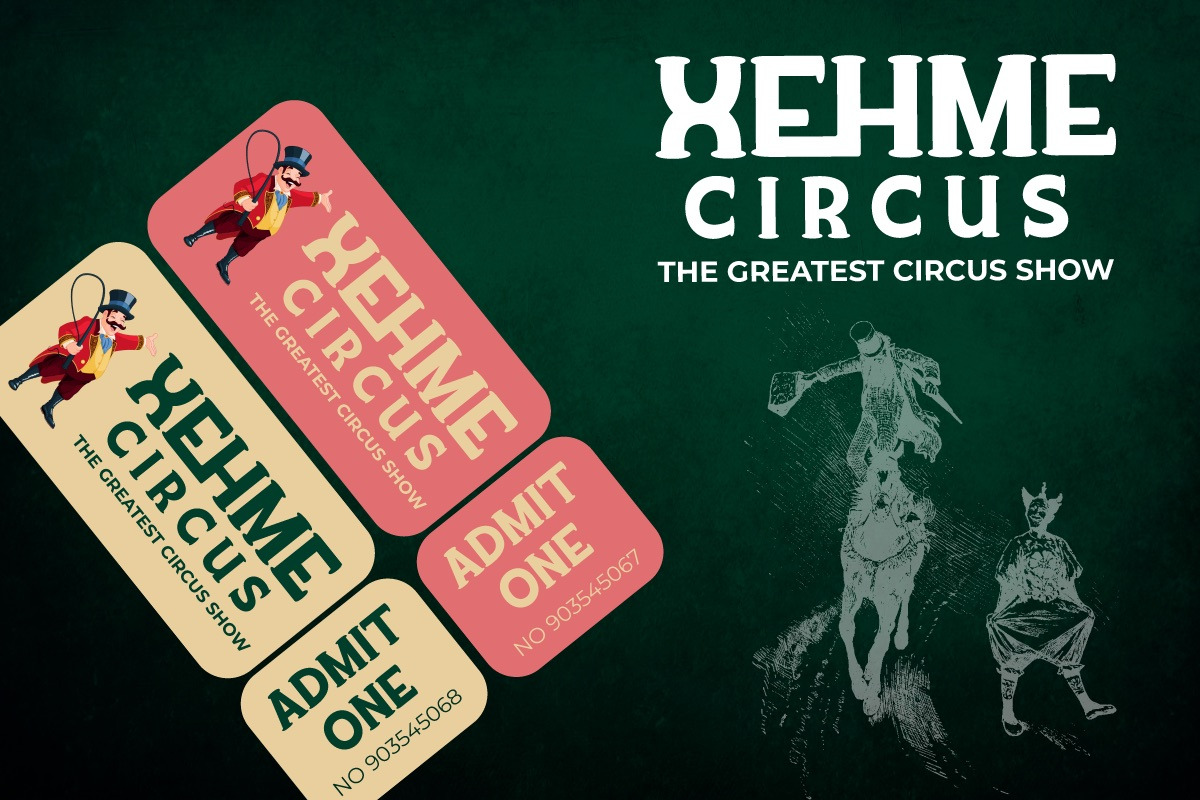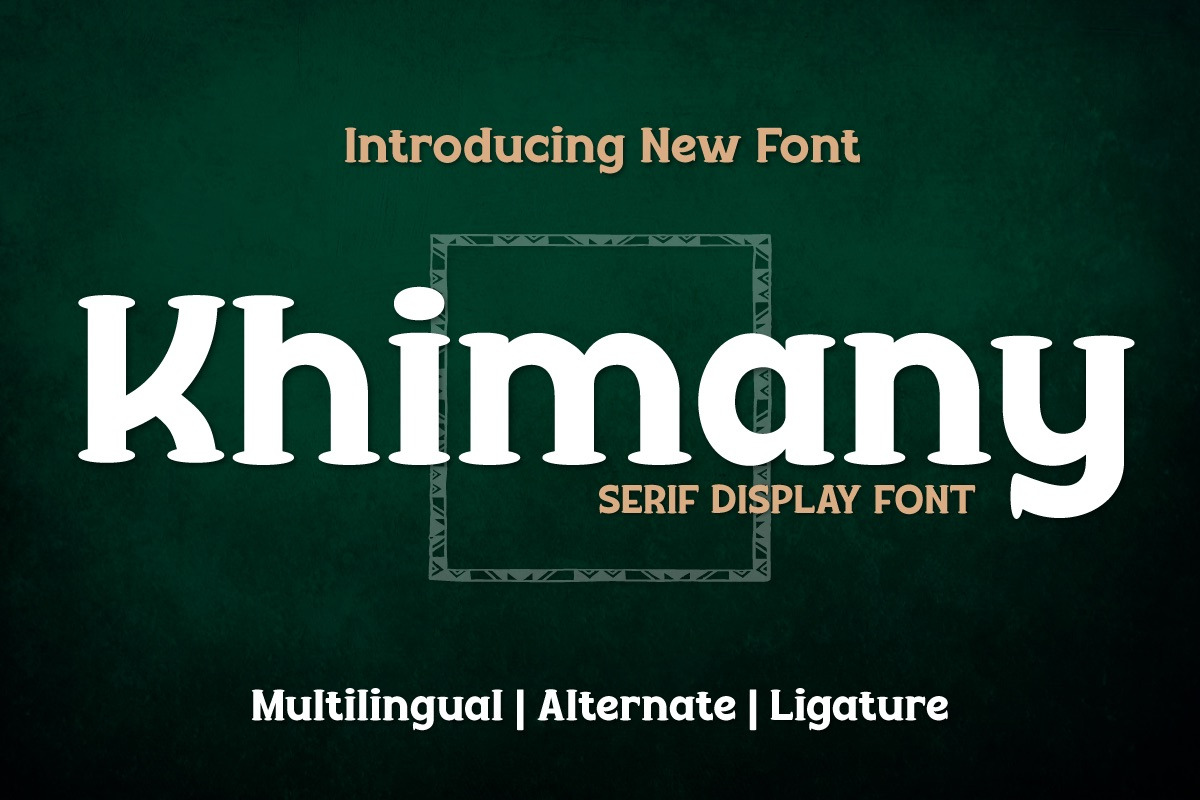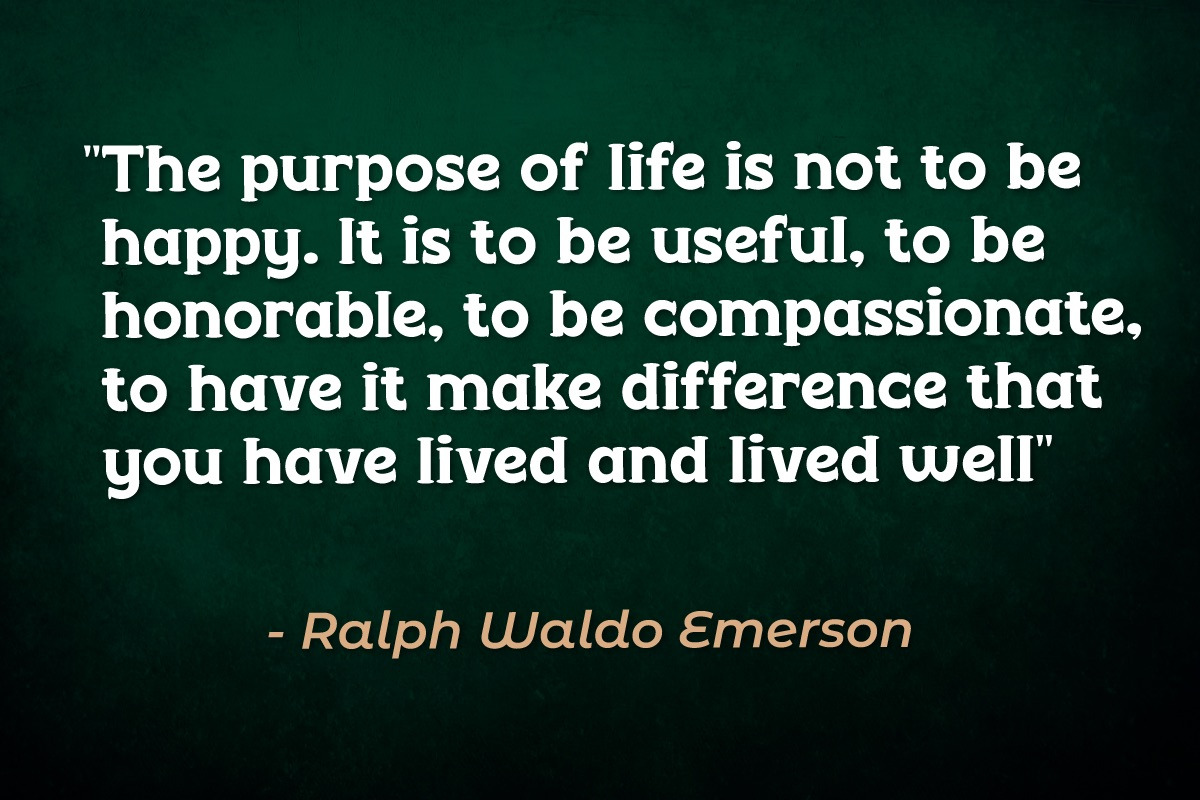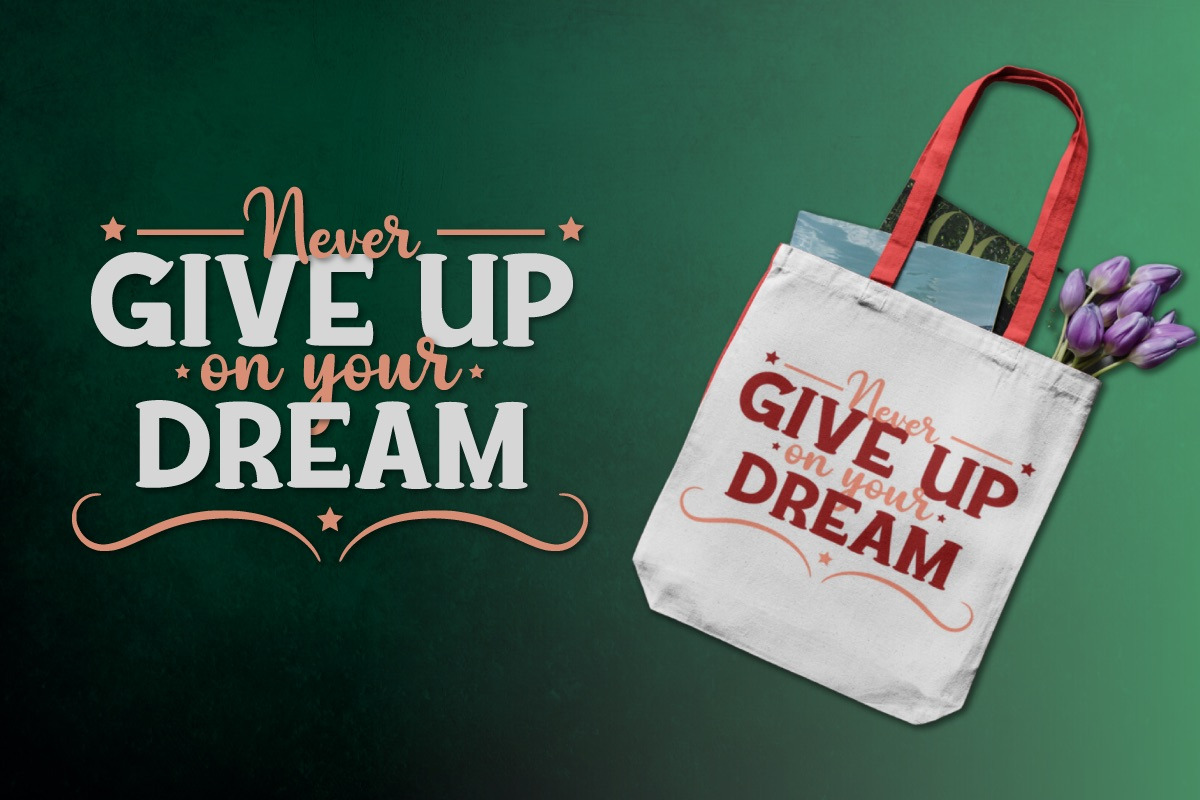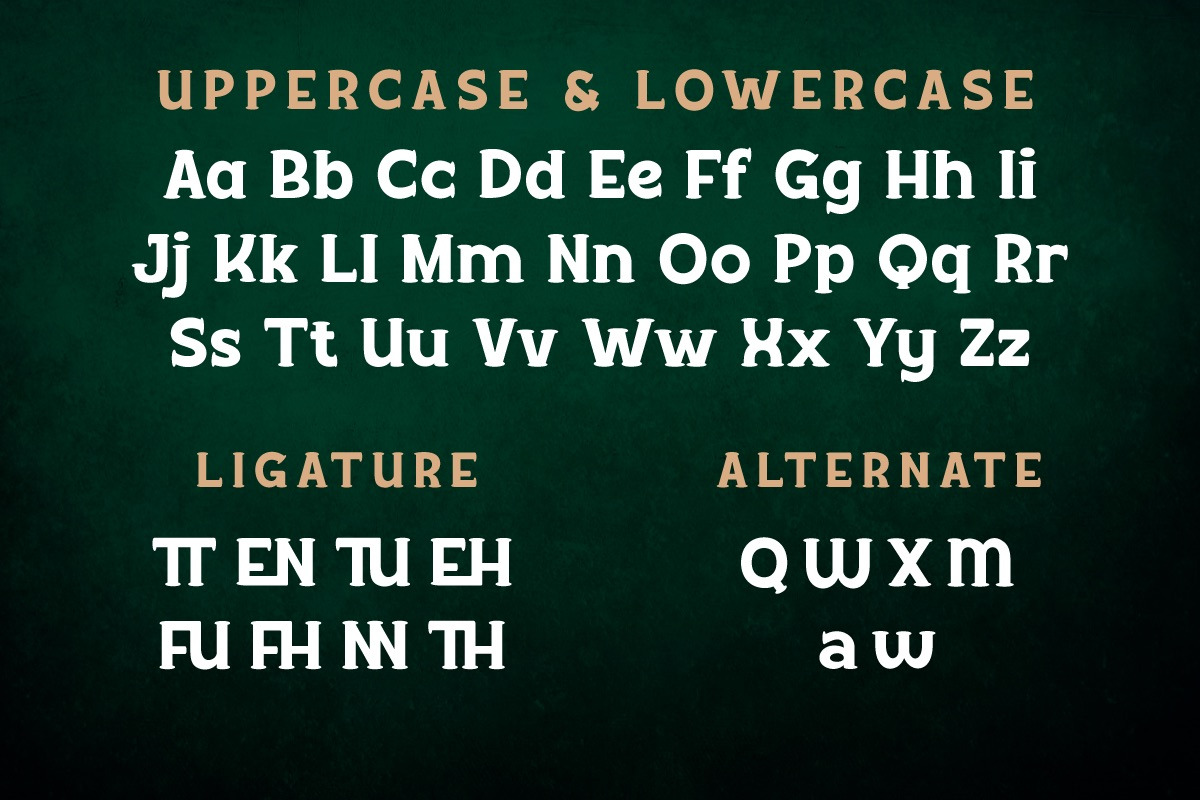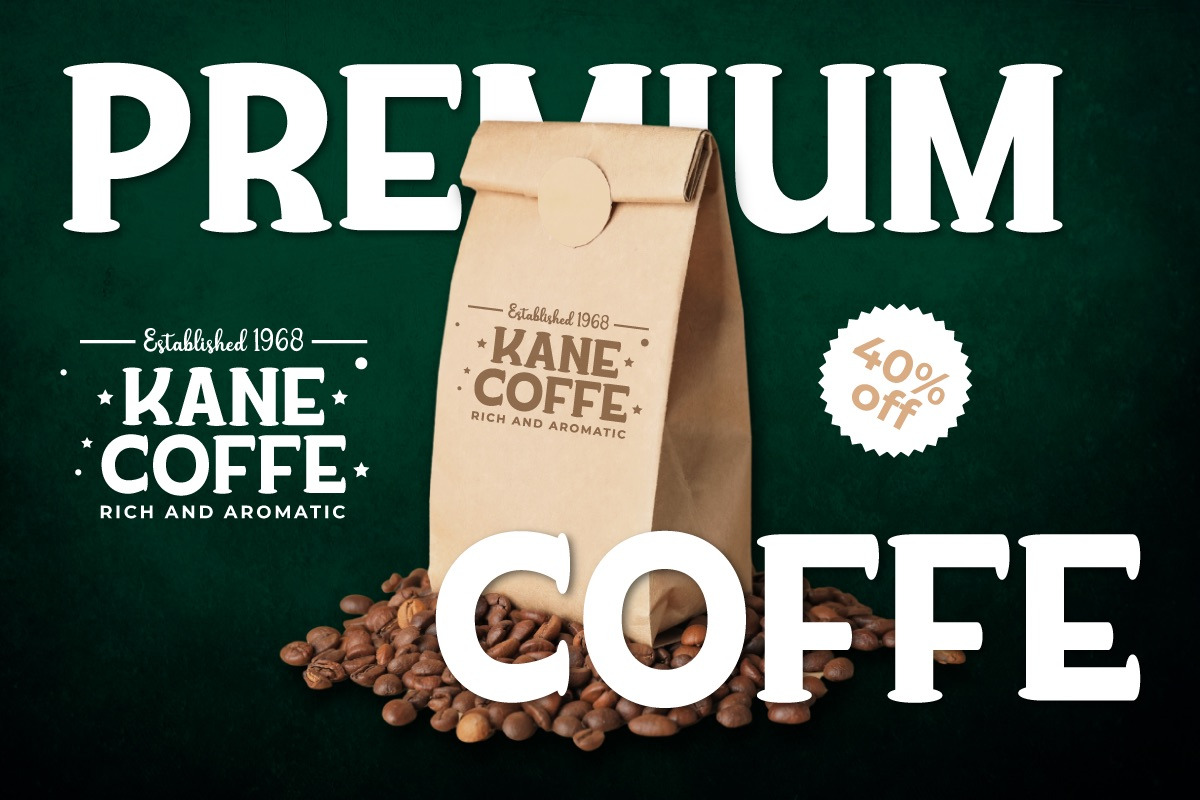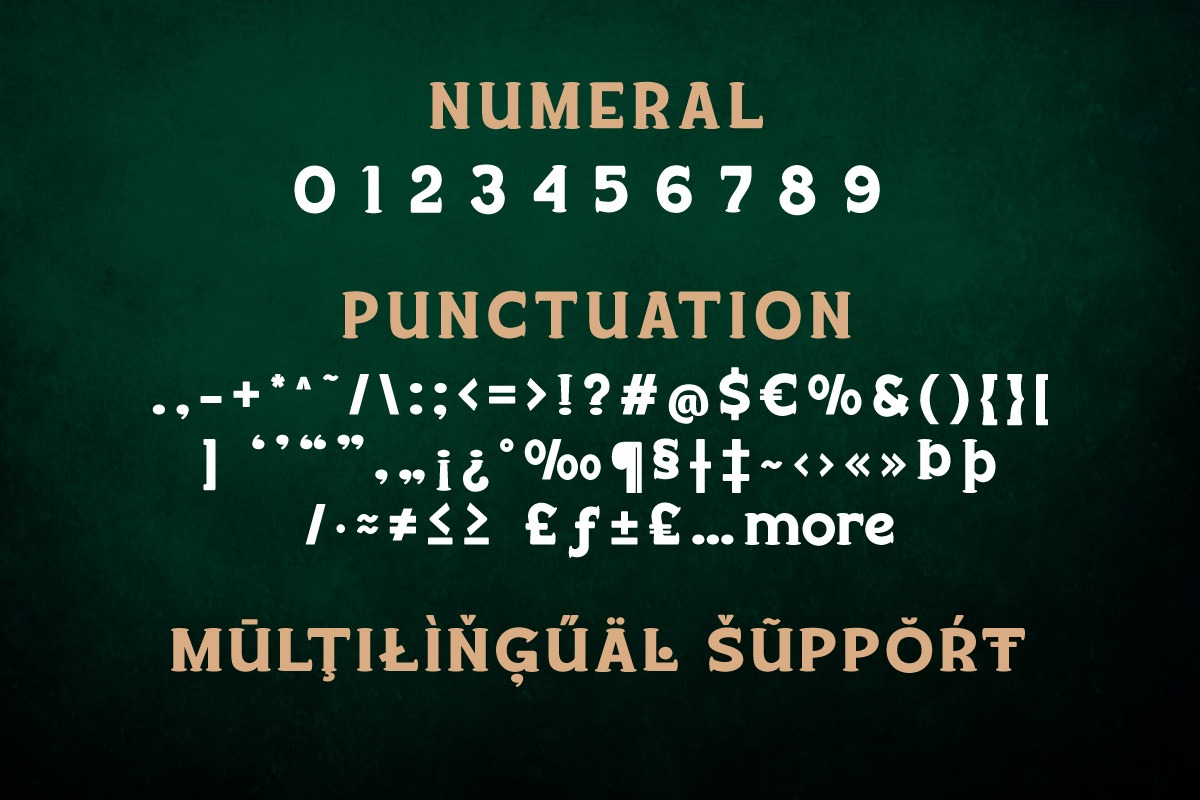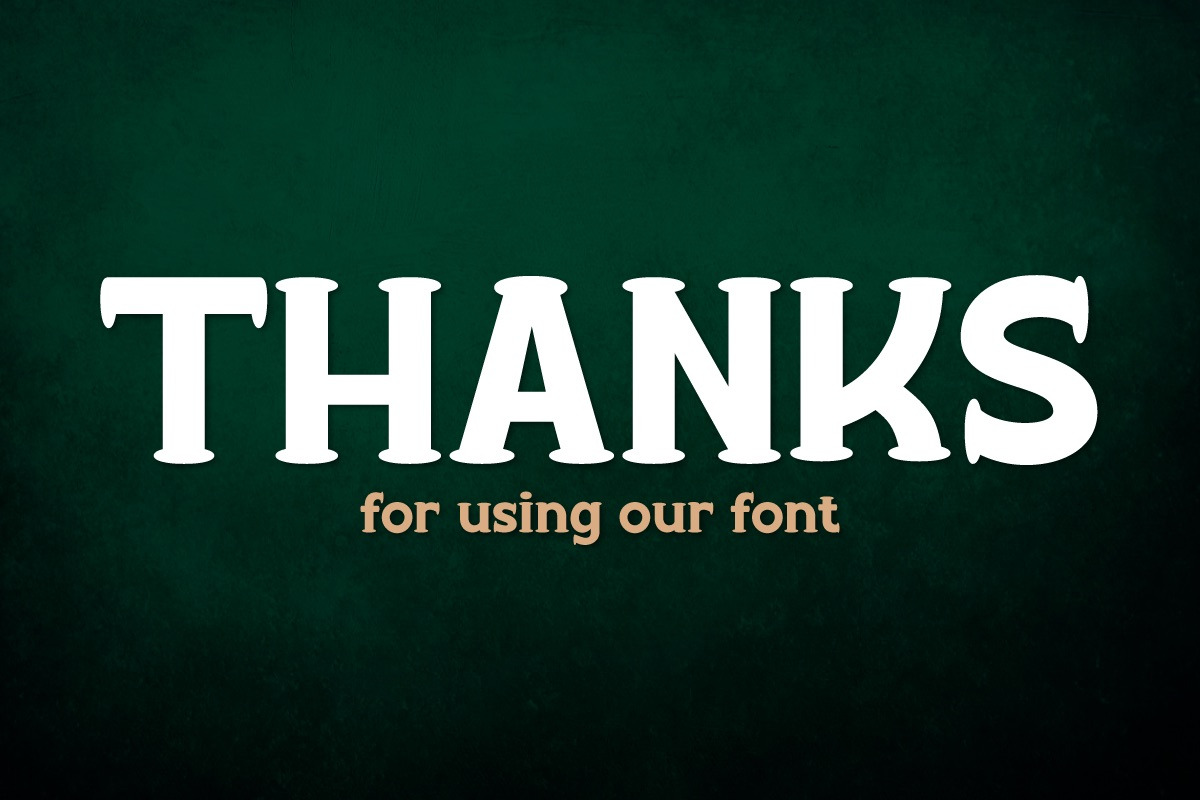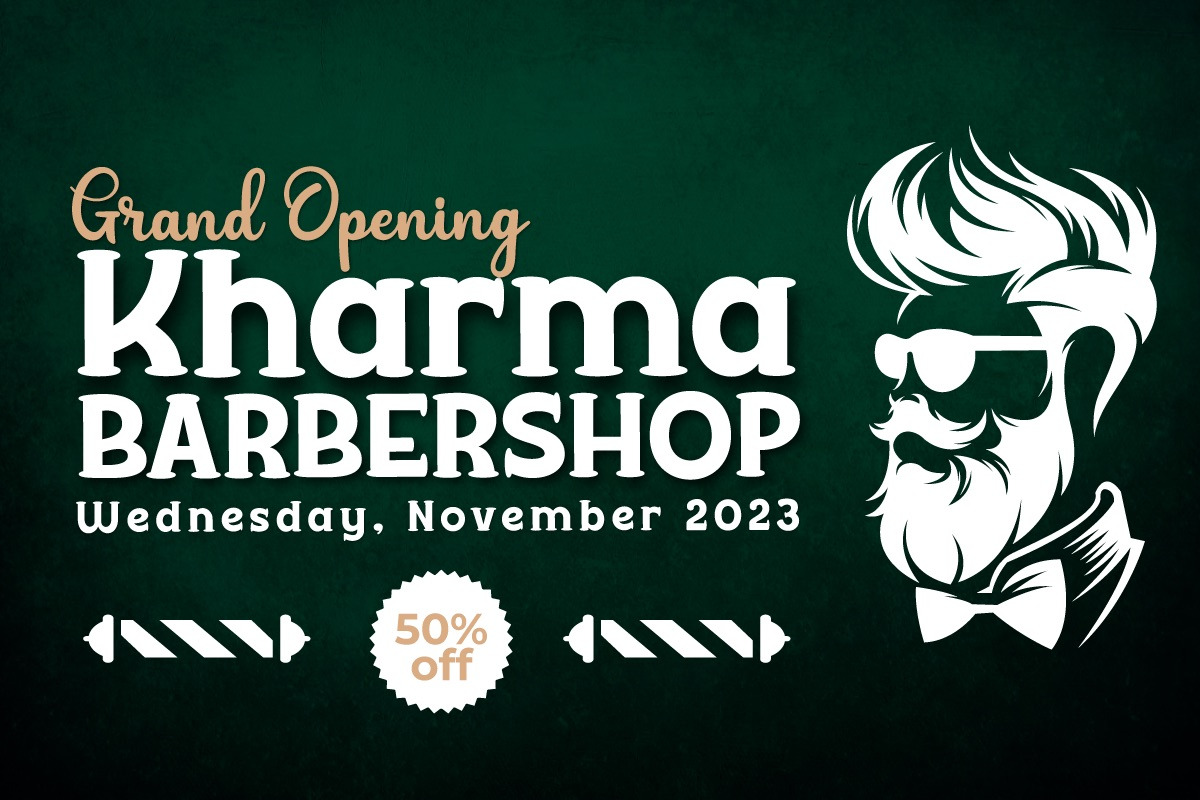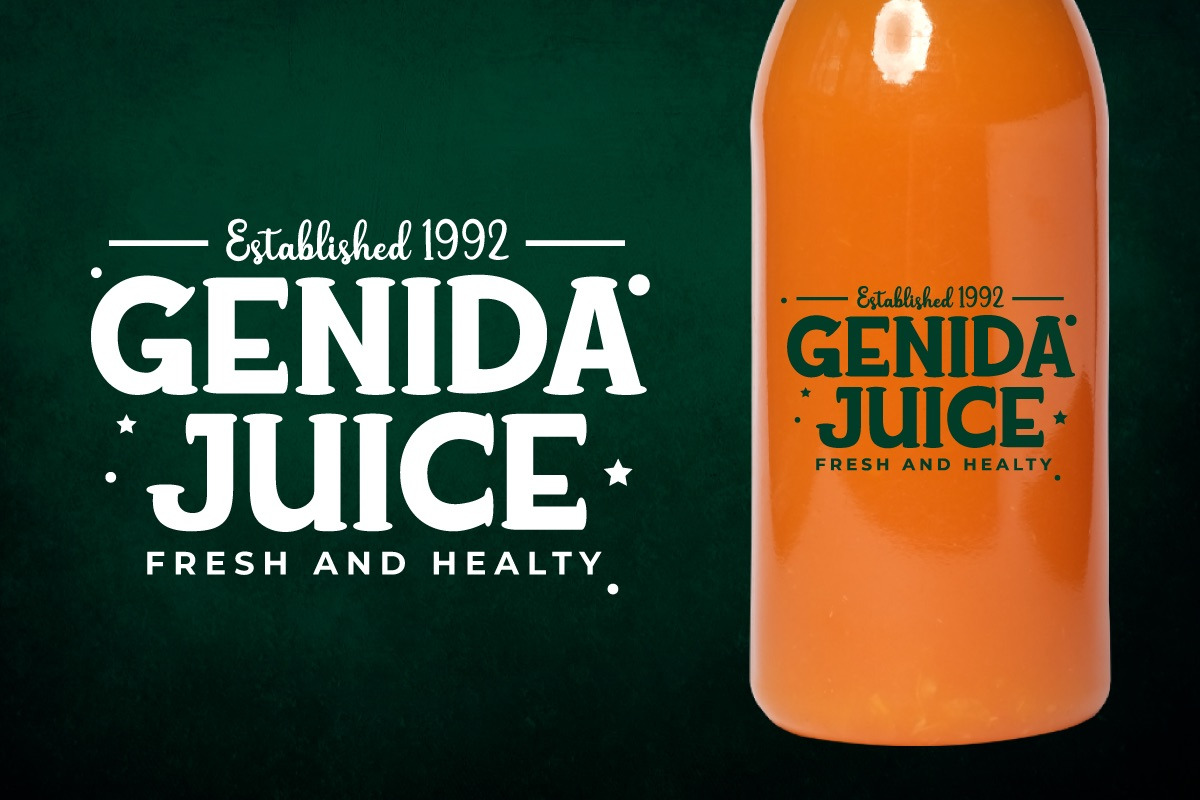
Khimany - Display Font
Welcoming you to the dynamic and distinctive world of typography! A genuinely distinctive serif display typeface is Khimany. Khimany is the ideal option if you're seeking for a bold and distinctive look for your numerous visual design tasks.
What sets Khimany apart from other people? has incredible characteristics. Khimany provides you with the versatility to create distinctive and varied letter designs by making ligatures and alternates readily available. This is your chance to give each of your projects a unique touch.
Khimany offers various languages since we realize how crucial it is to communicate with a worldwide audience. Your message will reach a global audience in a powerful and clear way with Khimany.